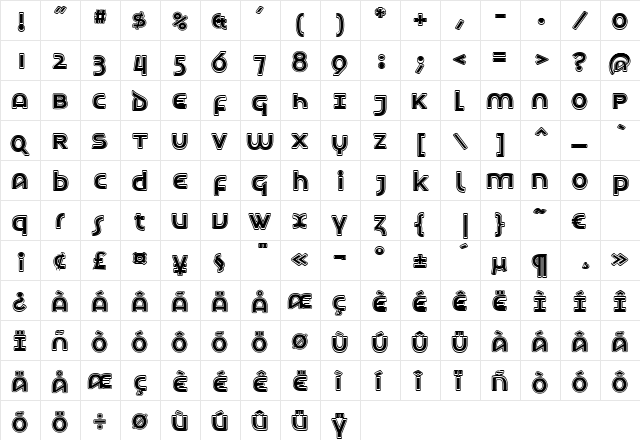
TechnoInline Regular
Design Context for TechnoInline Typeface
TechnoInline channels digital-age aesthetics through its sharp, structured letterforms — ideal for brands that want to signal innovation.
Pro Tip: Use TechnoInline in combination with a neutral sans for body text. Let it define the brand voice in headlines while keeping reading comfortable elsewhere.